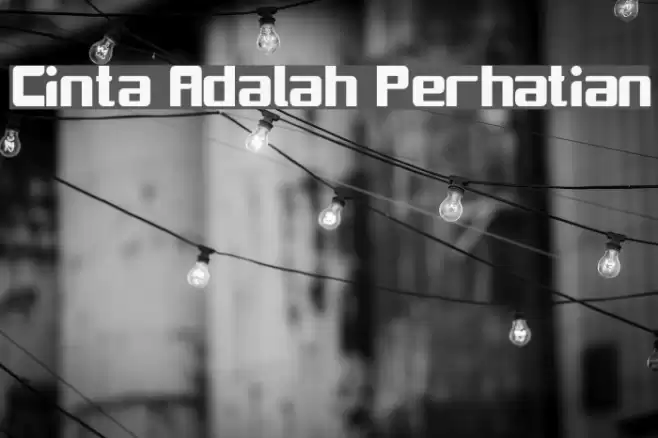
Cinta Adalah Perhatian Font
Cinta Adalah Perhatian Description
This font features a bold and geometric design with a modern aesthetic. The characters are constructed with thick, uniform strokes, giving them a strong and impactful presence. The uppercase letters are blocky and angular, while the lowercase letters maintain a similar structure with slightly softer edges. The numerals are consistent with the overall style, providing a cohesive look. Special characters are designed to match the boldness and geometric nature of the alphabet, ensuring versatility across various uses. The font's design is clean and straightforward, making it suitable for attention-grabbing headlines and display purposes.
A bold, geometric font with a modern and impactful design from Uncategorized fonts.
- Proposed Projects: Ideal for branding, posters, headlines, and any project requiring a strong visual impact.